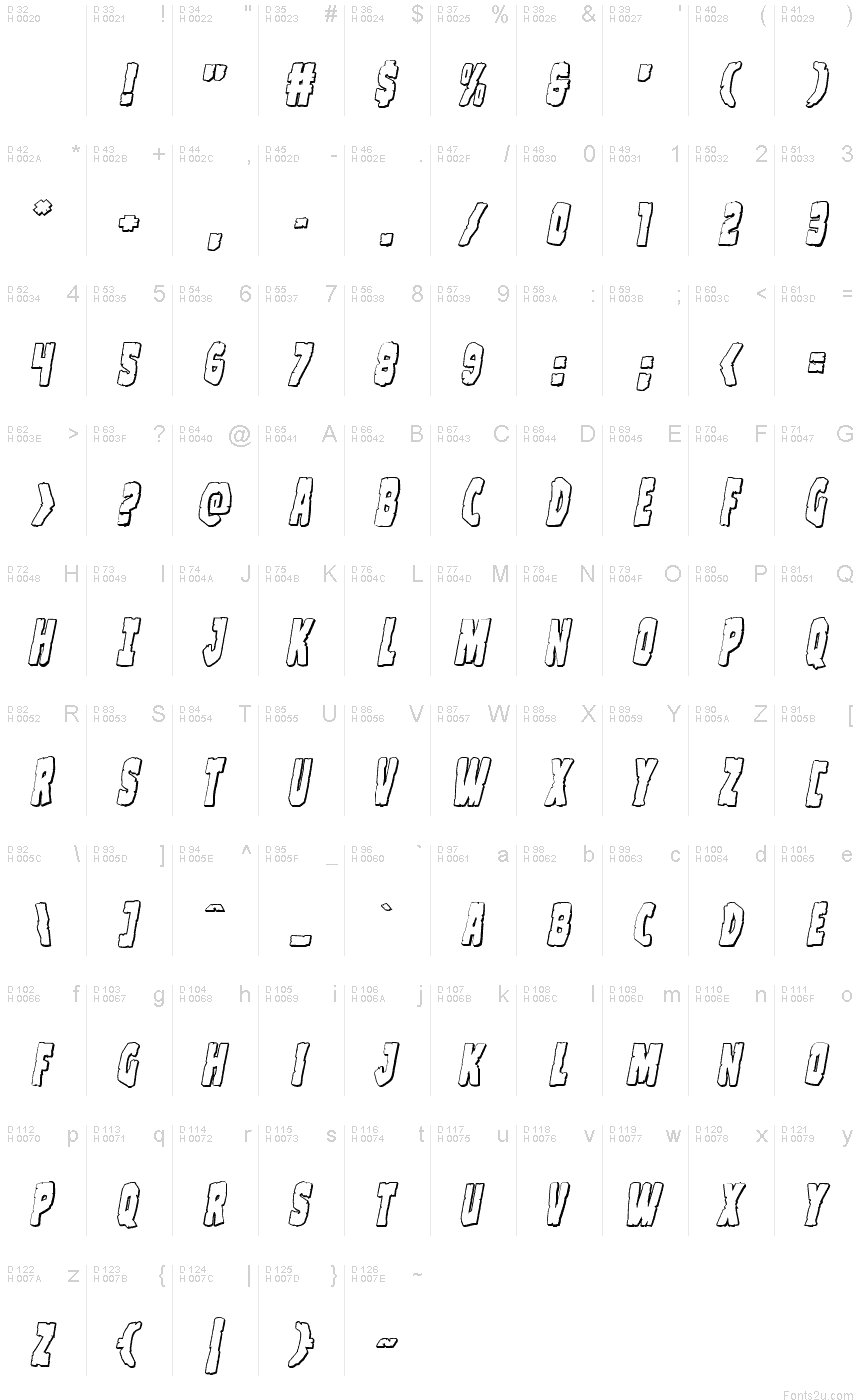
Clubber Lang 3D Italic by Iconian Fonts is a free outlined cartoon display font with a rough comic-book edge. Tall, packed capitals lean forward behind nicked, uneven contours.
For boxing event graphics and sports posters, its battered shapes and dimensional shadow suggest impact, motion, and old comic printing. The same aggressive treatment also fits arcade game art, music merchandise, and snack packaging centered on loud illustrated mascots. It best suits youth entertainment brands with an action-heavy comic style and a taste for exaggerated lettering.